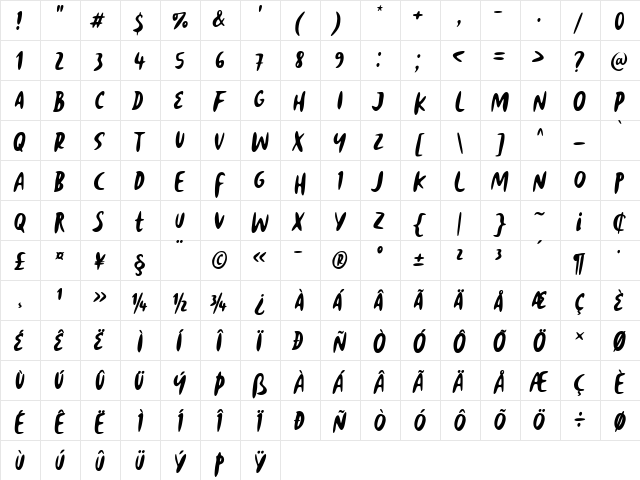
Reborn Revolt Regular
| Foundry | 7NTypes |
| Designer | Keithzo; Situjuh Nazara |
Design Context for Reborn Revolt Typeface
Reborn Revolt is a composed and adaptable typeface that performs quietly and consistently across a wide range of design contexts.